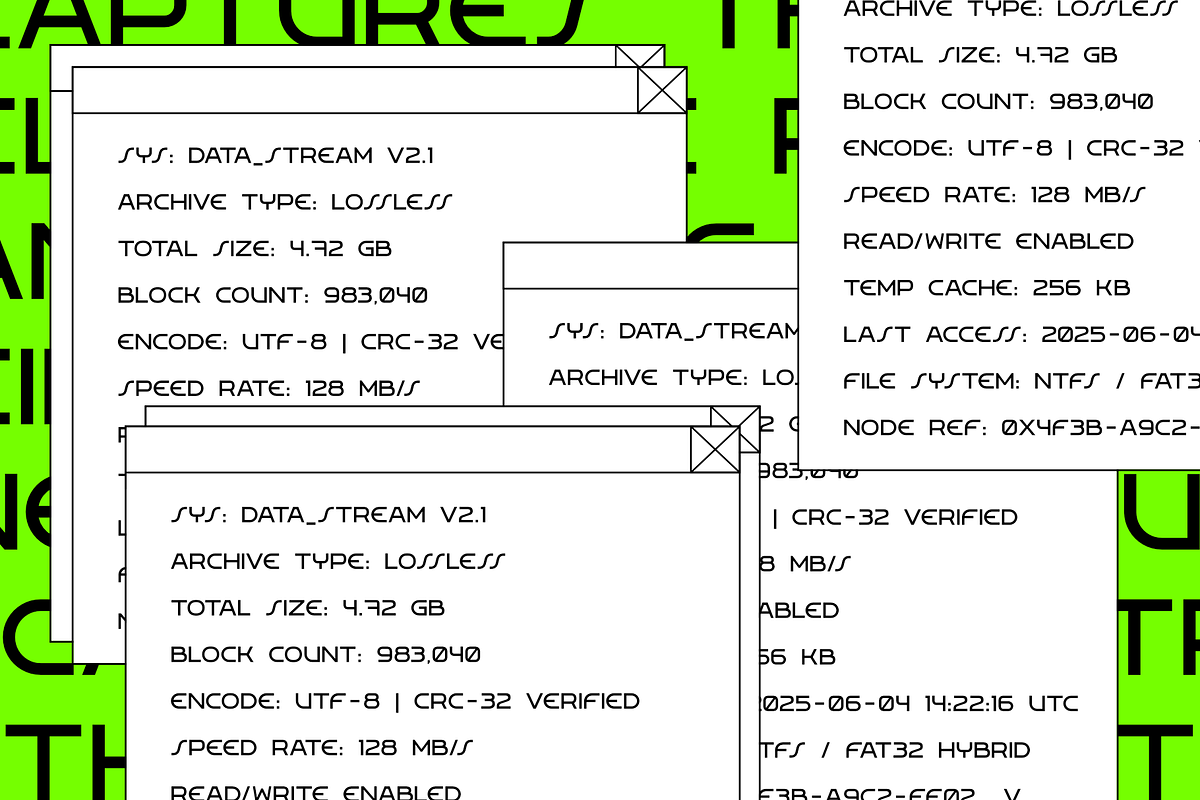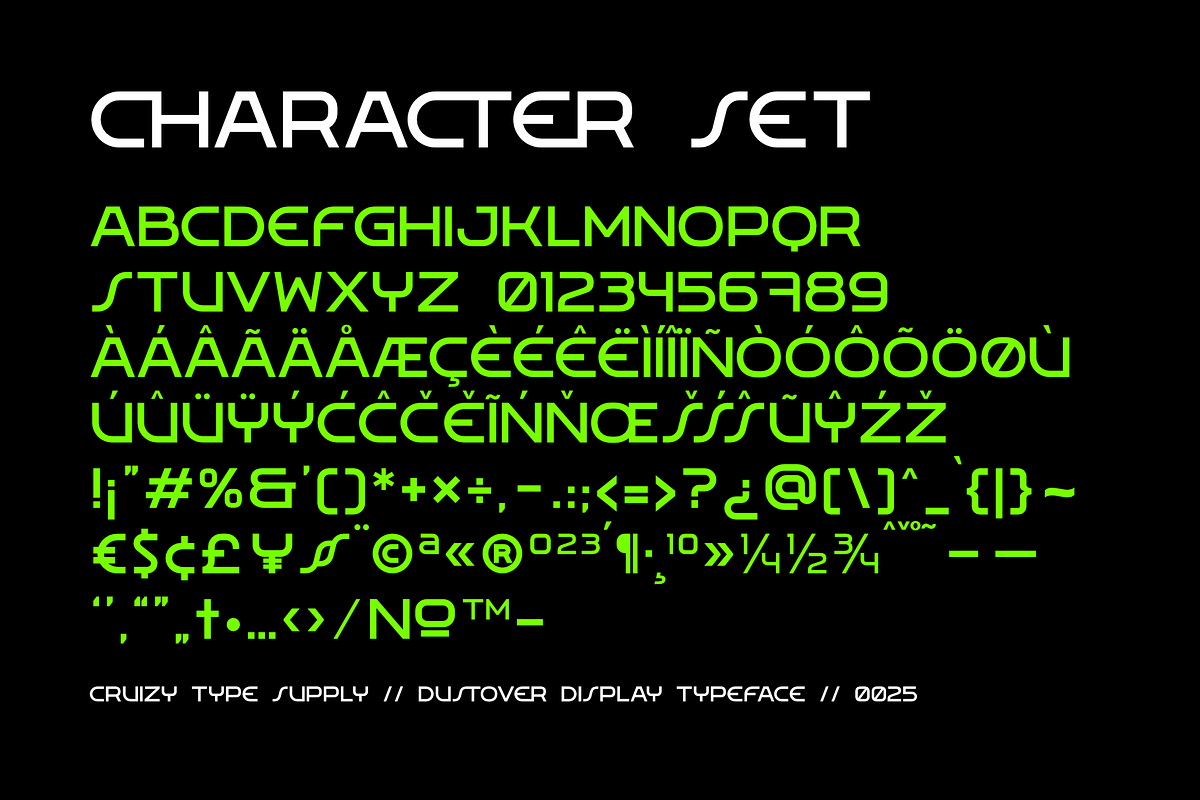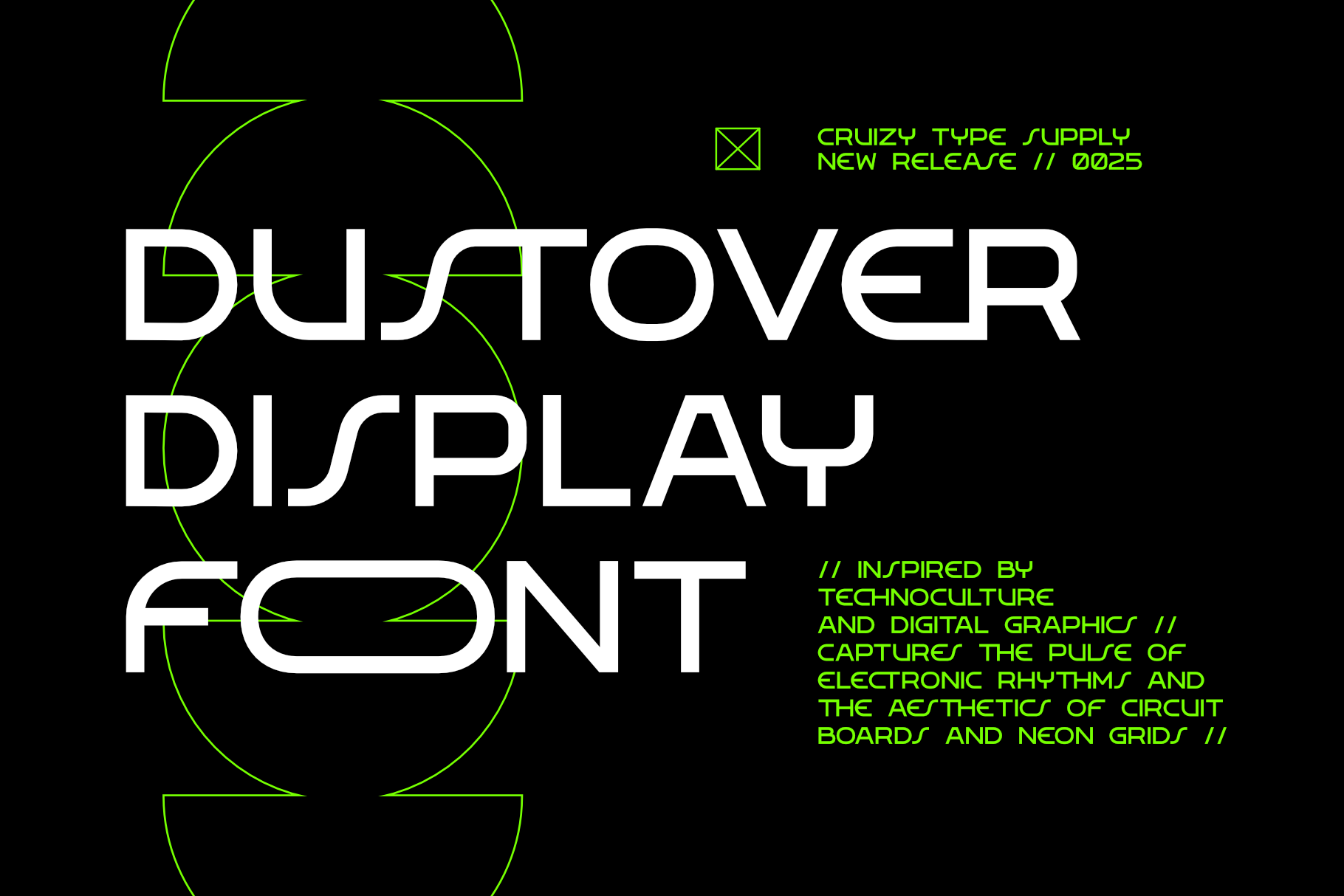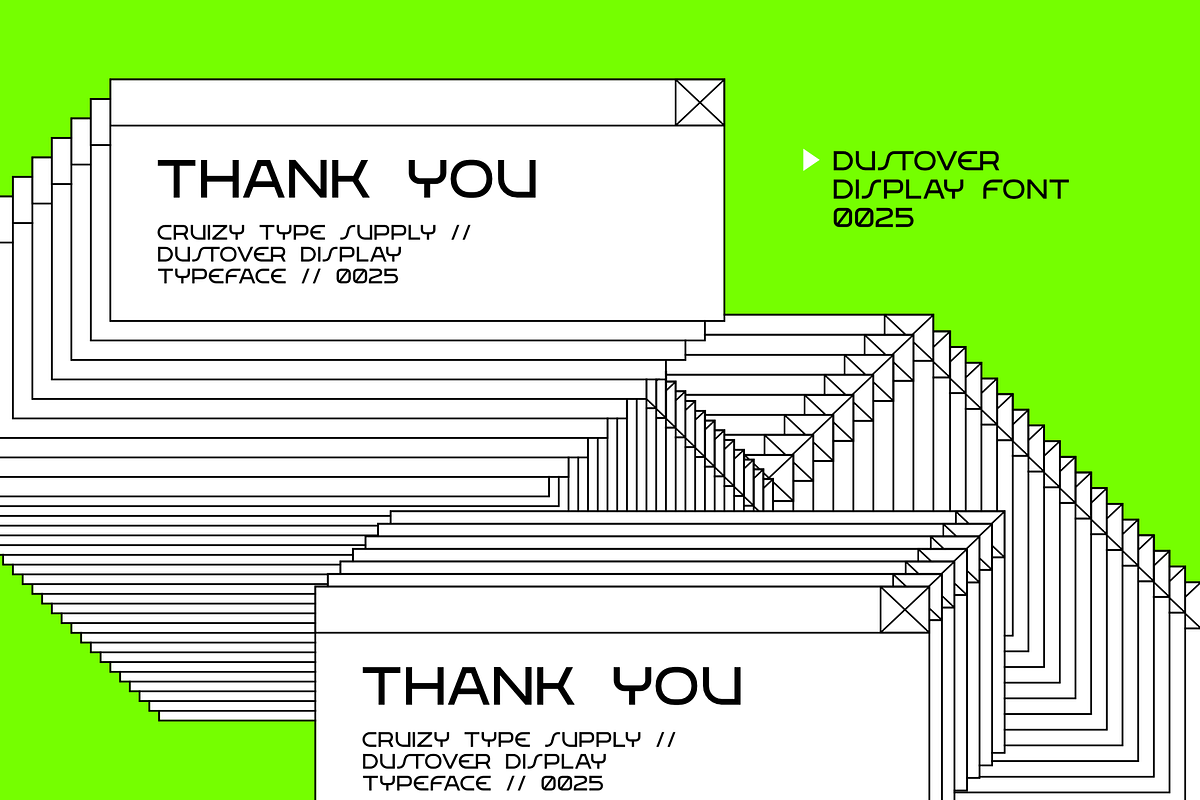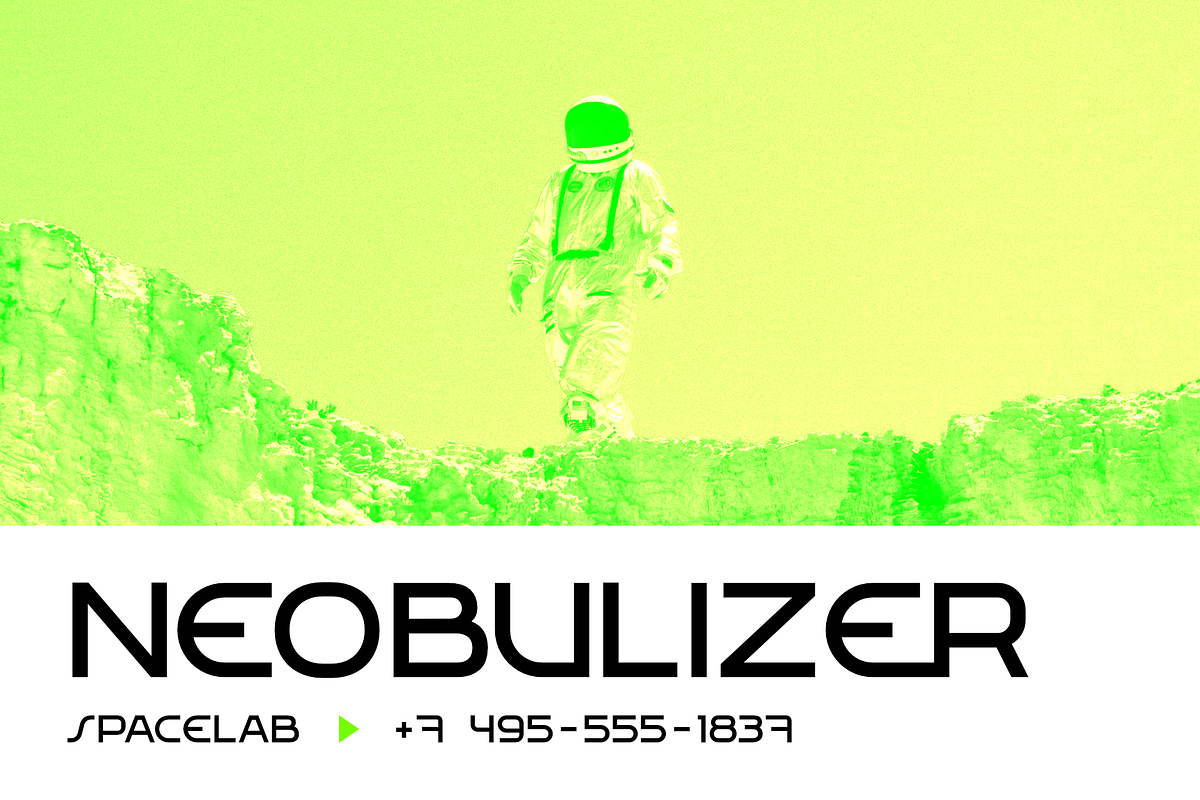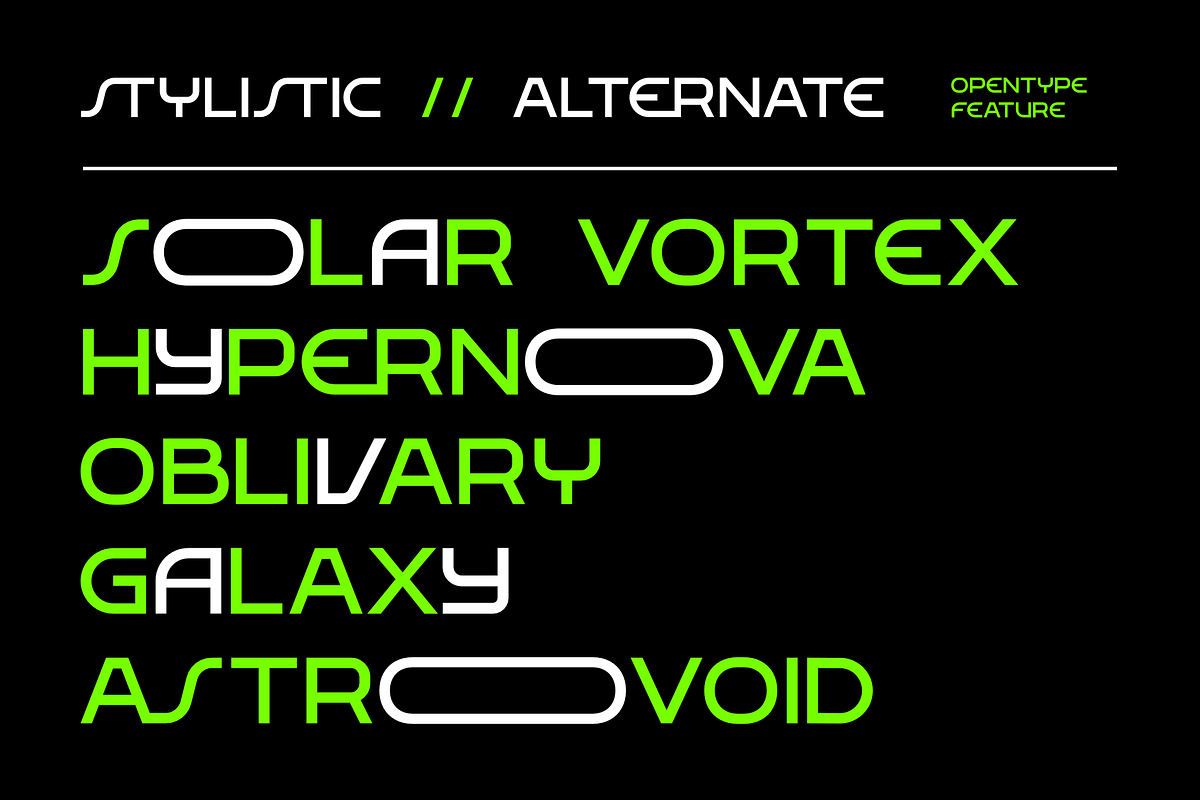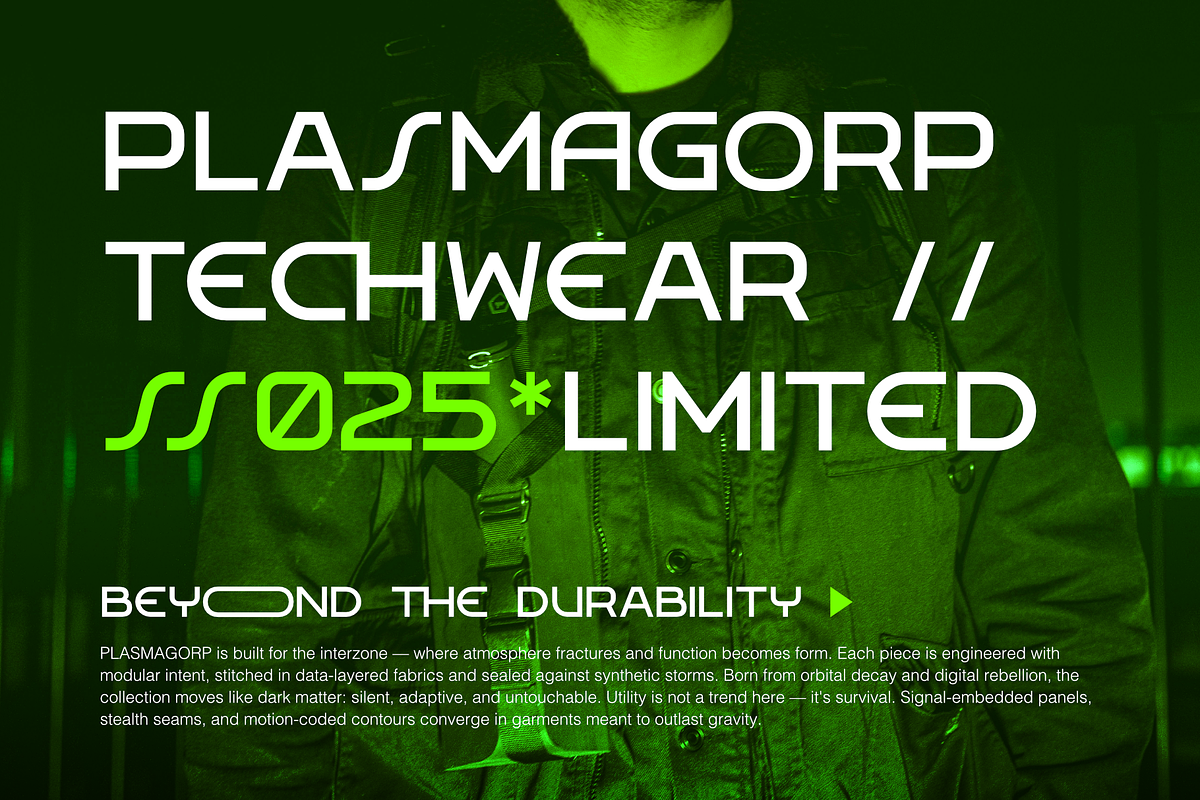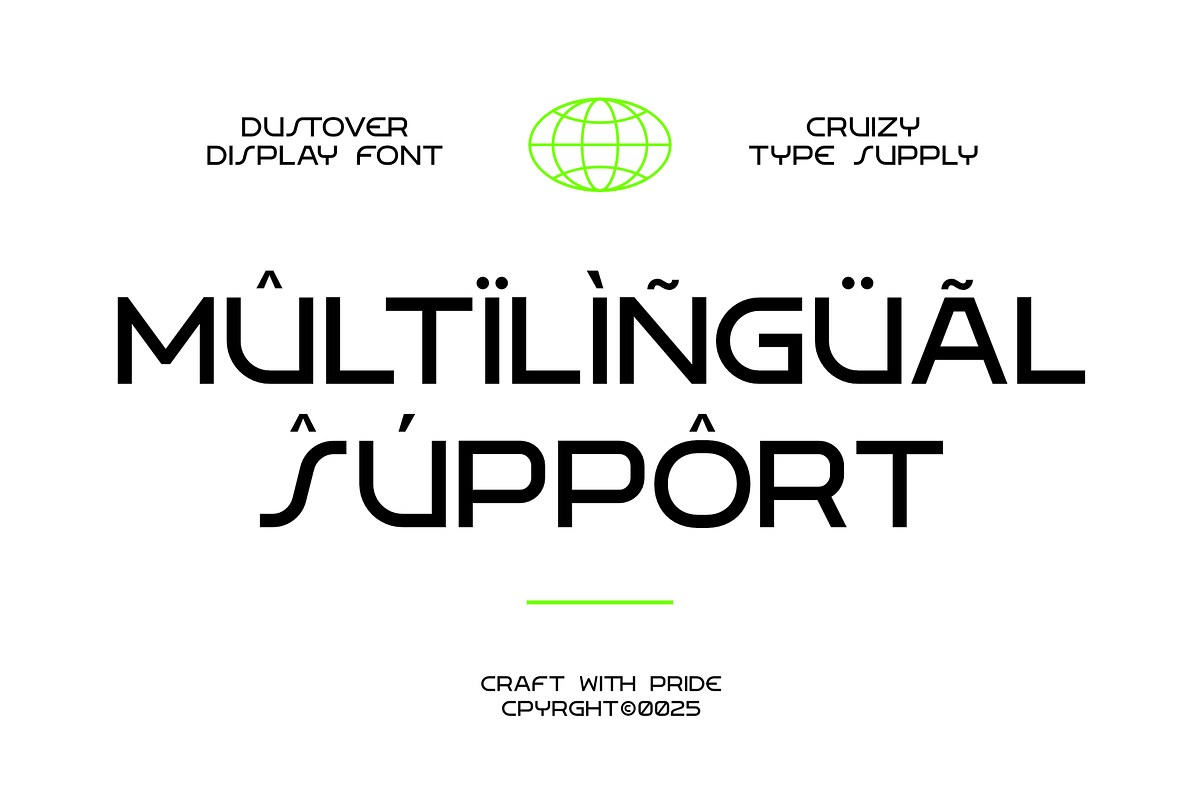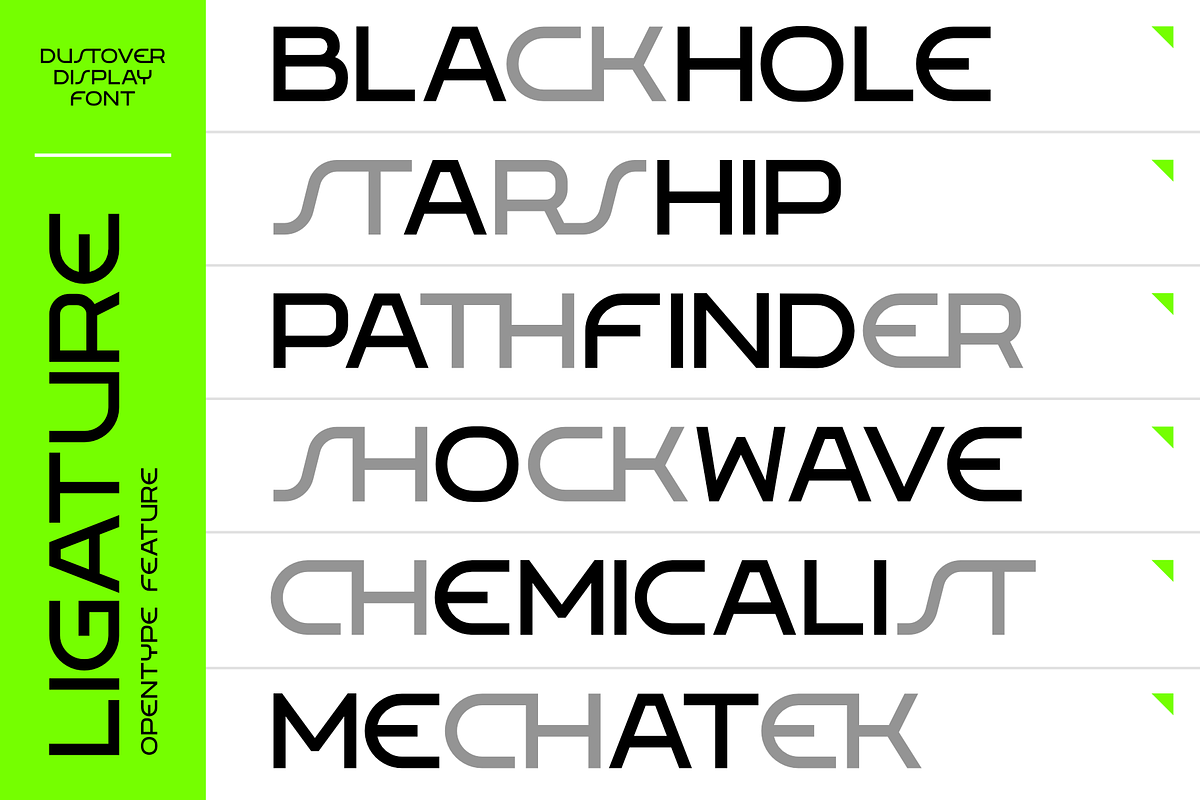
DUSTOVER - Futuristic Display Font
DUSTOVER is a futuristic display typeface inspired by digital schematics, circuit boards, and sci-fi visual culture. Its sharp forms and techno-geometric rhythm make it perfect for science fiction book covers, documentary titles, merch designs, and anything that needs a touch of digital grit.
Packed with OpenType features like stylistic alternates and custom ligatures, DUSTOVER gives you extra flexibility to craft bold, high-tech compositions with ease. Whether you're designing for screens, print, or beyond — this font thrives where the analog ends and the future begins
- All-Caps Character
- Symbol, Punctuation & Currency
- Stylistic Alternate